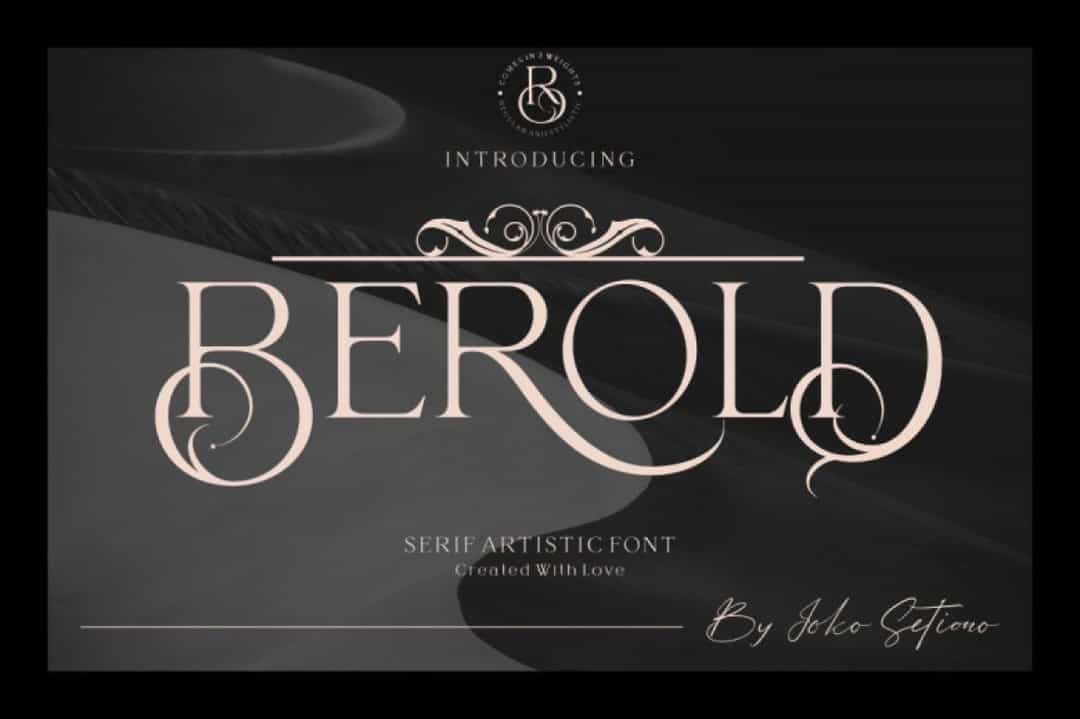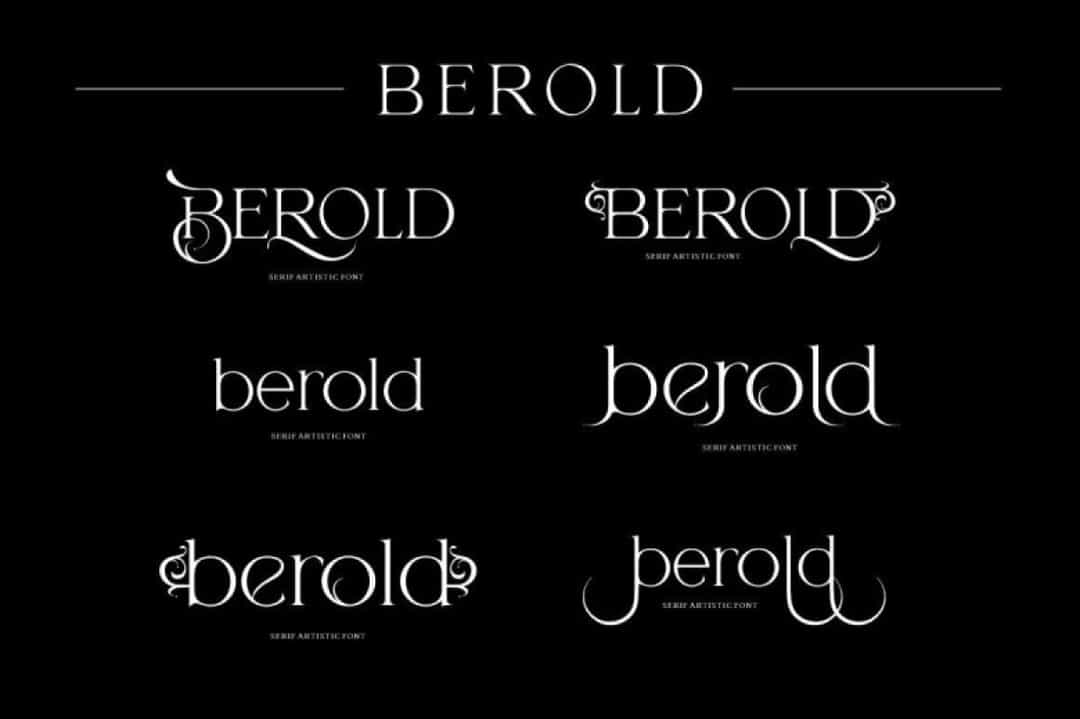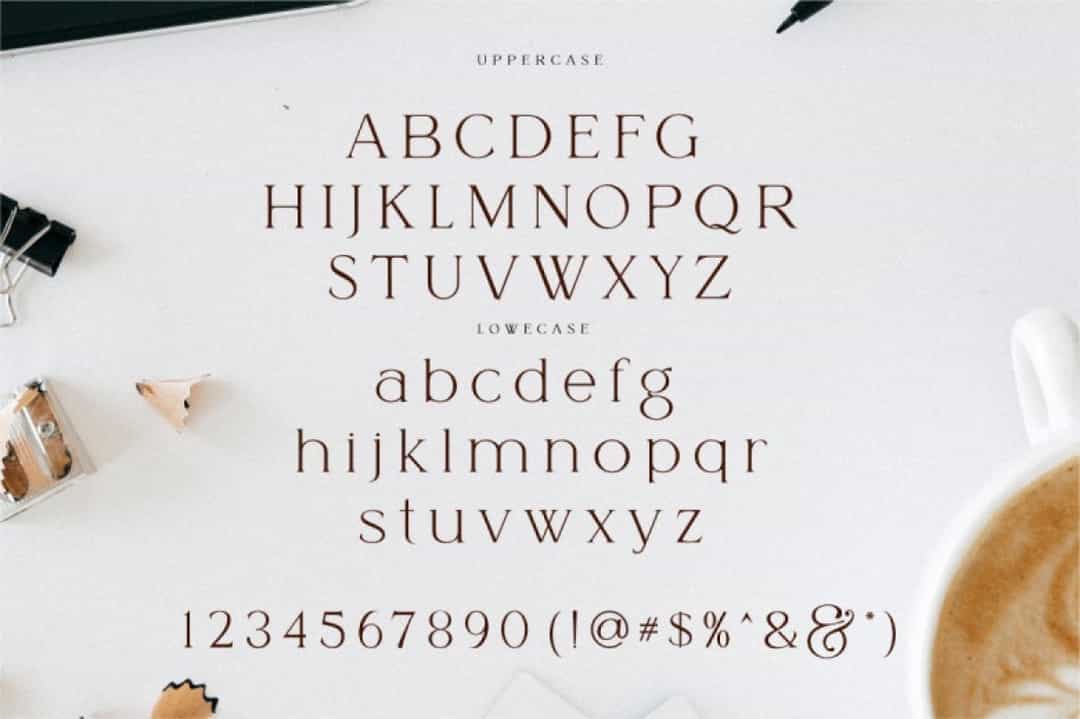
Berold Font is an artistic and modern Serif font with traditional styling that features a distinctive uppercase look. Perfect for blogs, fashion Instagram branding, invitations, weddings, business cards and much more, Berold Font can add style and substance to your designs and blog sites alike.